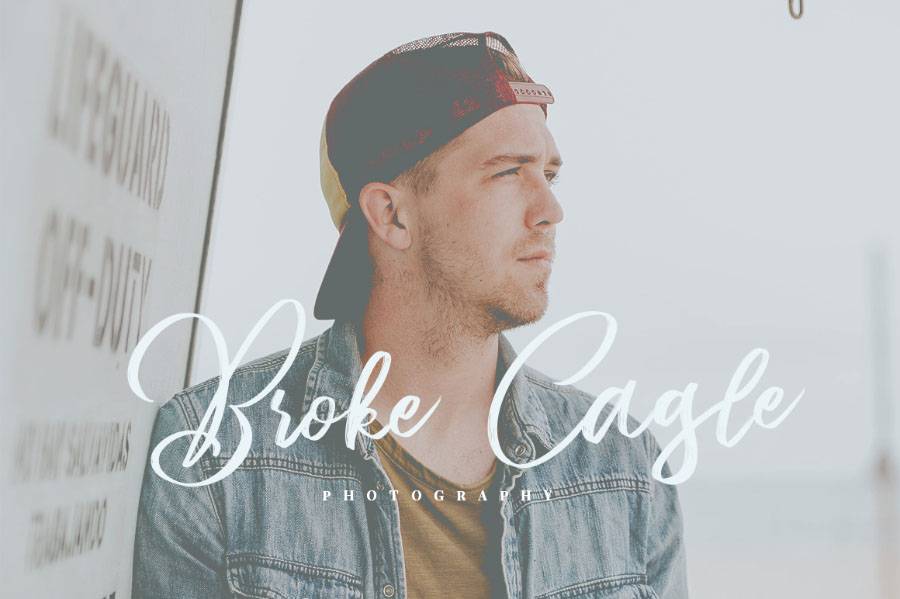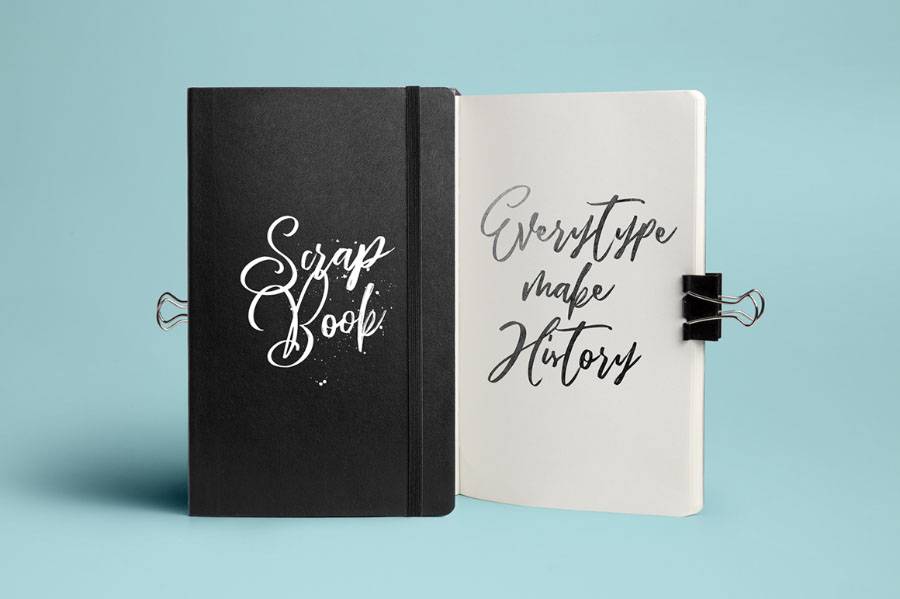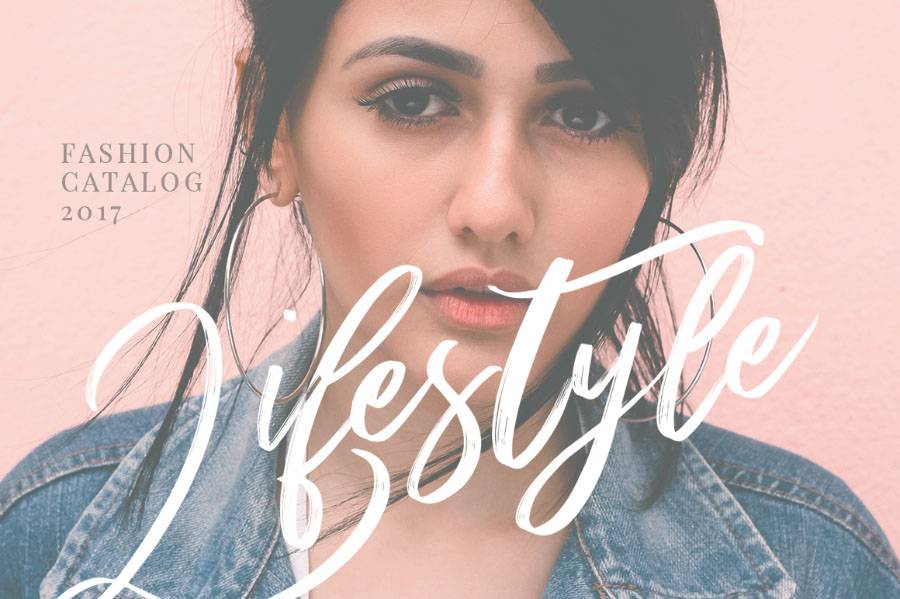
Cursive Script Demo is an elegant, hand-drawn script font with fluid, brush-like strokes that create a natural and artistic feel. Its varying stroke thickness and smooth connections give it a lively, personal touch, making it perfect for invitations, branding, and creative projects seeking a stylish, handwritten look. This font is ideal for adding warmth and personality to designs that need a graceful yet approachable vibe.
Cursive Script Demo
About Cursive Script Demo